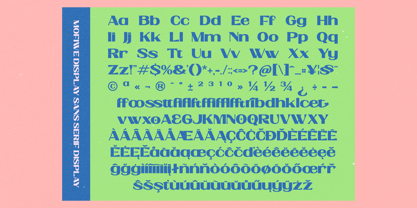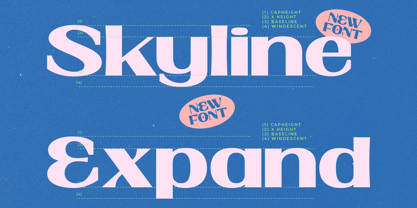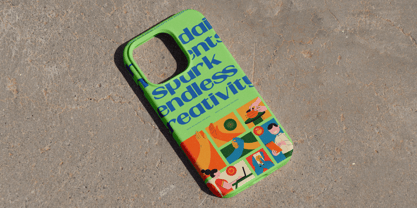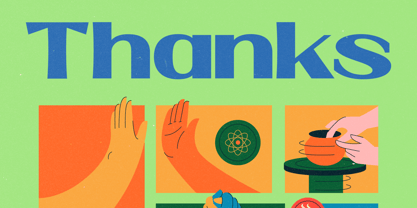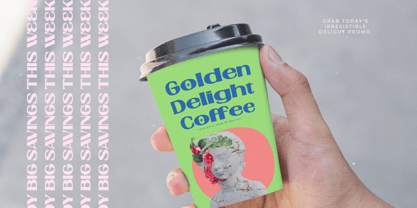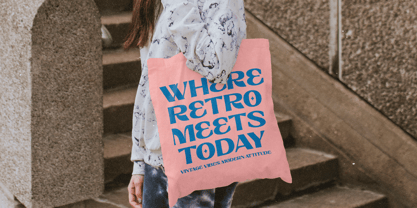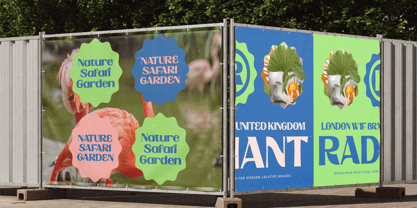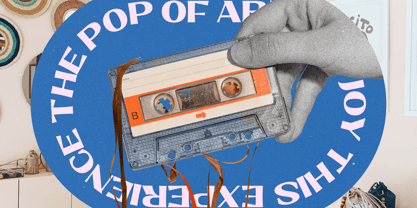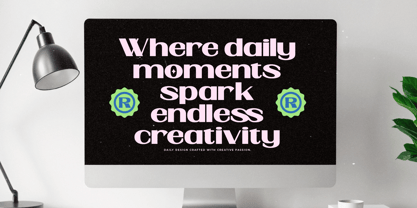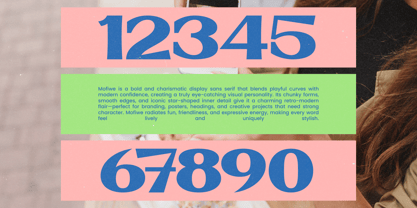
The Mofiwe Font Family was designed by Heru Utama Putra and published by Timelesstype Studio. Mofiwe contains 2 styles and family package options.
Mofiwe Sans is a modern display sans built with bold personality and playful geometric curves. Designed to elevate creative branding, its clean structure is enhanced by stylized alternates and unique ligatures that add character without sacrificing readability. With 368 glyphs and full multilingual support, Mofiwe Sans adapts seamlessly to editorial layouts, packaging, posters, social media graphics, and lifestyle design projects. Its soft edges and retro-inspired charm make it a versatile choice for designers seeking a fresh, expressive sans-serif with contemporary flair.
Mofiwe